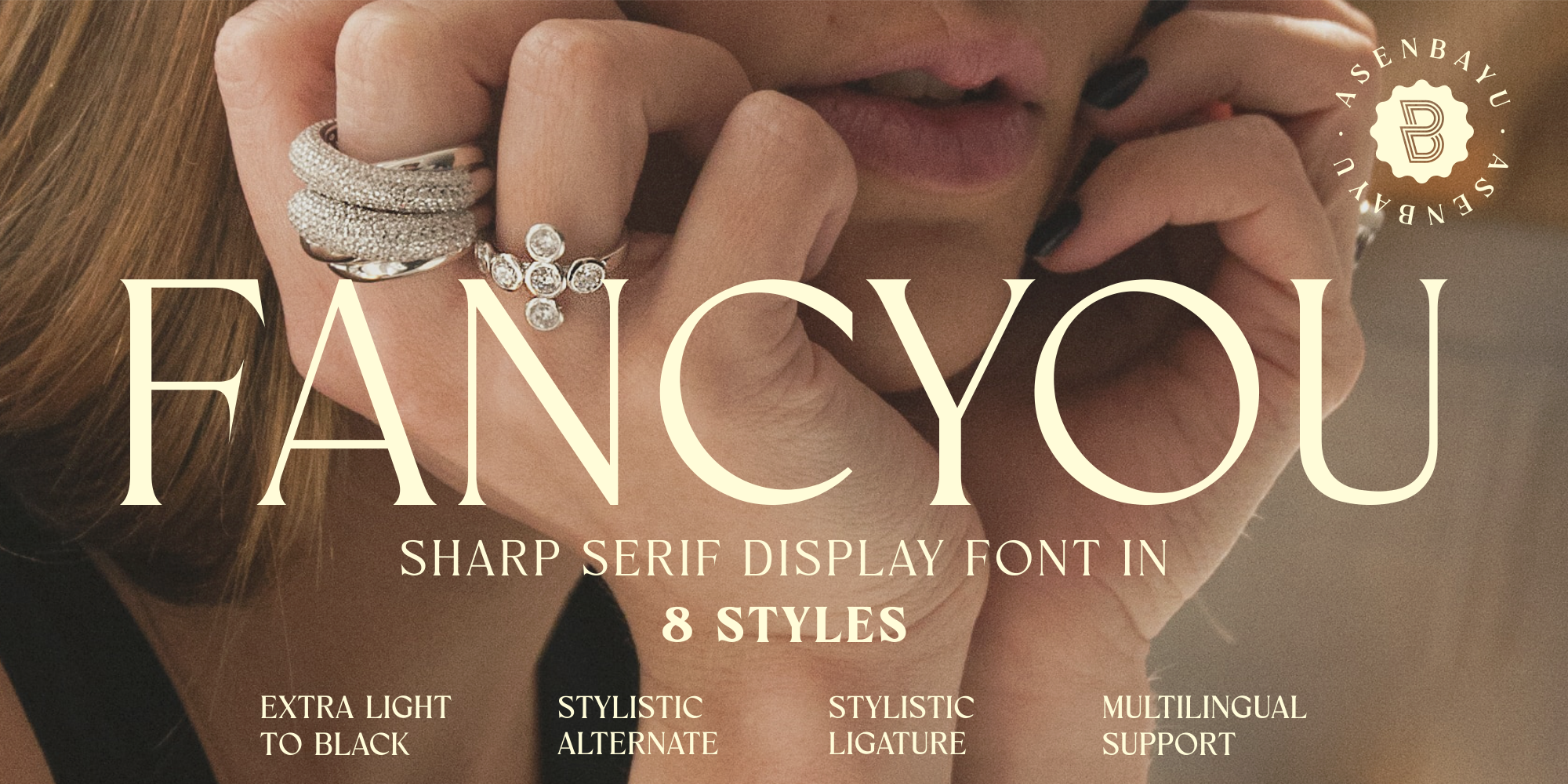
Fancyou Font is perfect for luxury fashion brands, upscale beauty salons, exclusive boutique stores, high-end cosmetic packaging, premium lifestyle magazines, elegant personal branding, sophisticated social media graphics, glamorous event invitations, chic interior design studios, and refined romance novels.
What makes Fancyou Font exciting is its irresistible charm and sophisticated allure that instantly elevates any design with glamorous elegance and personal magnetism. This enchanting typeface embodies the essence of refined attraction with its graceful curves and captivating character forms that whisper "fancy you" to every reader. The font's seductive personality creates an immediate sense of luxury and desirability that makes audiences feel special and appreciated.
Fancyou Font family includes regular weight with elegantly crafted character designs featuring romantic flourishes and sophisticated proportions. The typeface maintains excellent readability while showcasing its distinctive charming personality through carefully balanced letterforms that seem to flirt with readers and create intimate connections through typography.
Luxury brand designers consistently choose Fancyou Font Free Download for projects requiring authentic elegance and romantic sophistication. This remarkable typeface brings the art of refined seduction to brand communications, combining timeless glamour with contemporary appeal to create unforgettable luxury experiences. The thoughtfully designed characters ensure magnetic visual impact across all applications, making it essential for beauty brands, fashion houses, and any organization seeking to communicate the irresistible charm and sophisticated allure that makes customers feel truly special and desired in today's competitive luxury marketplace.